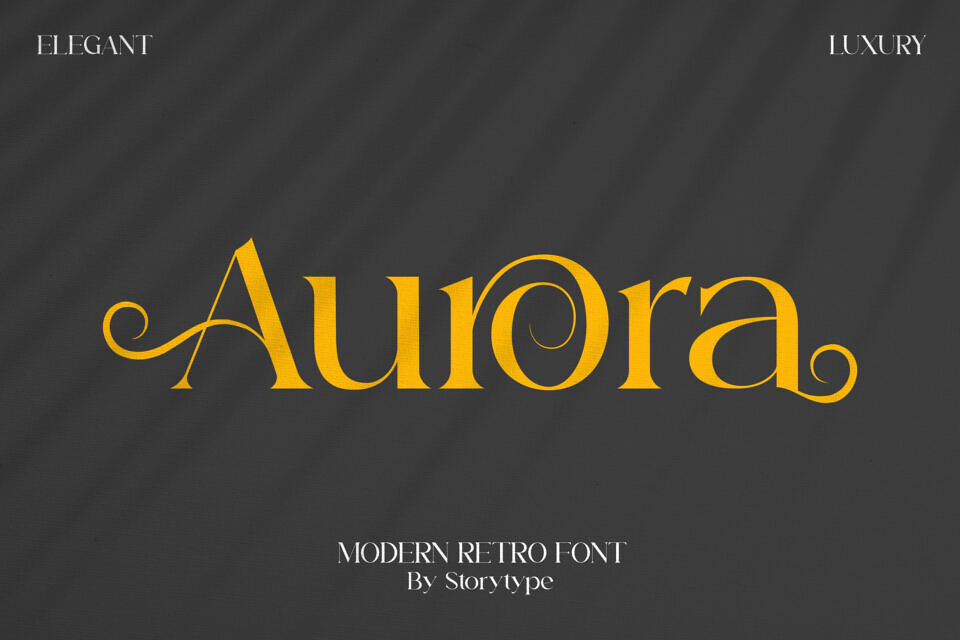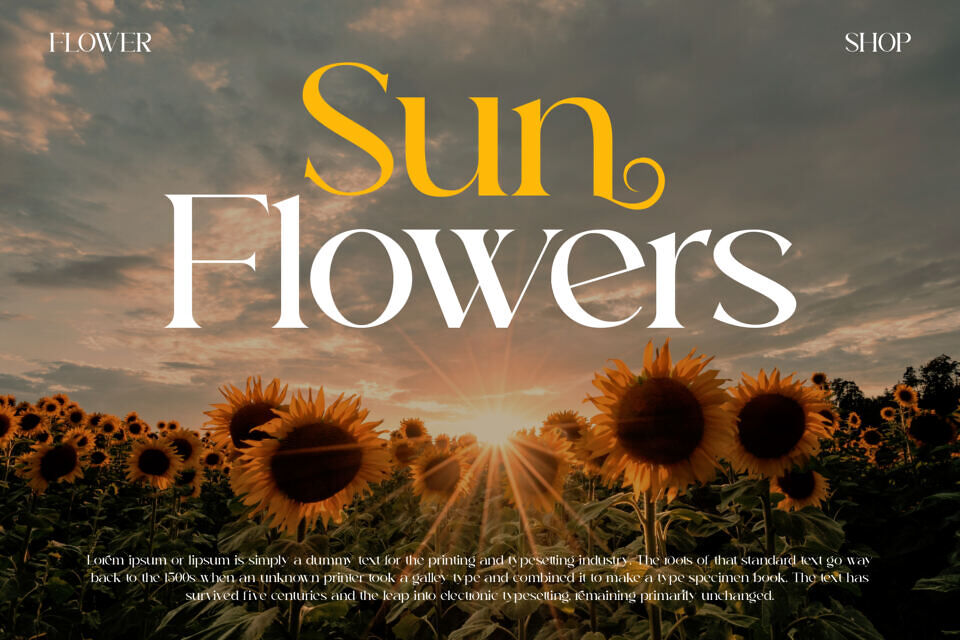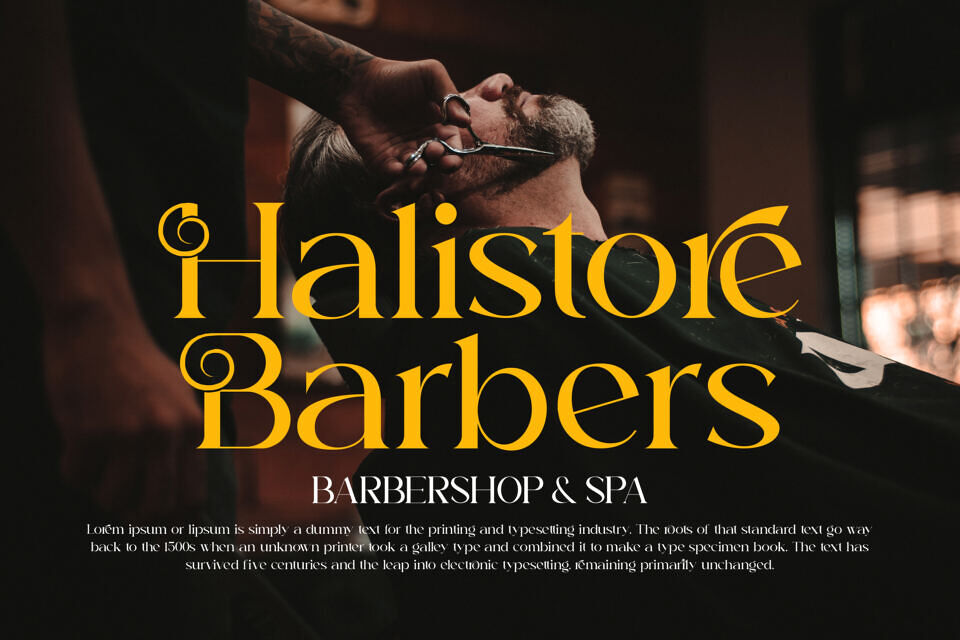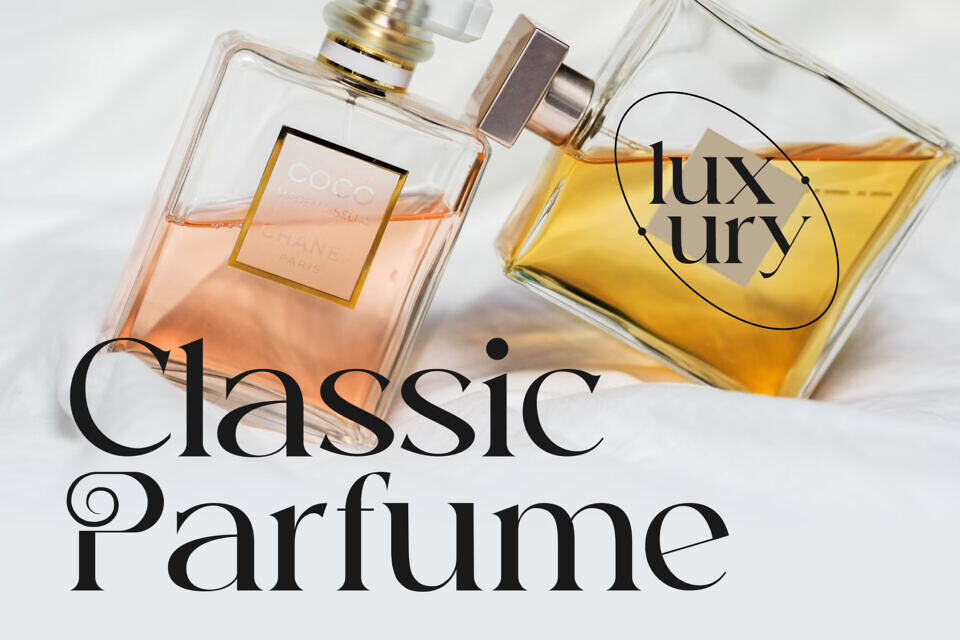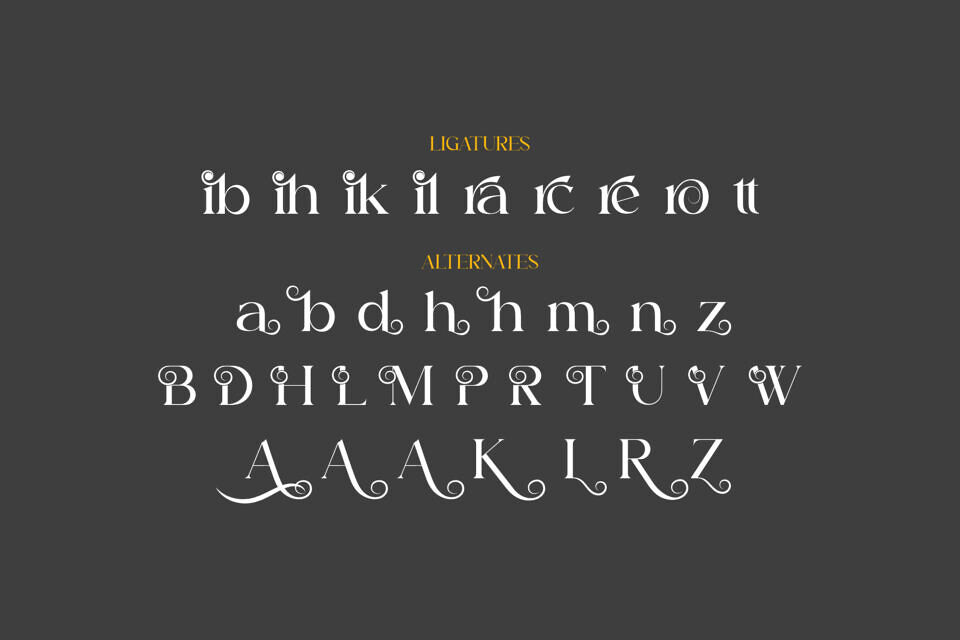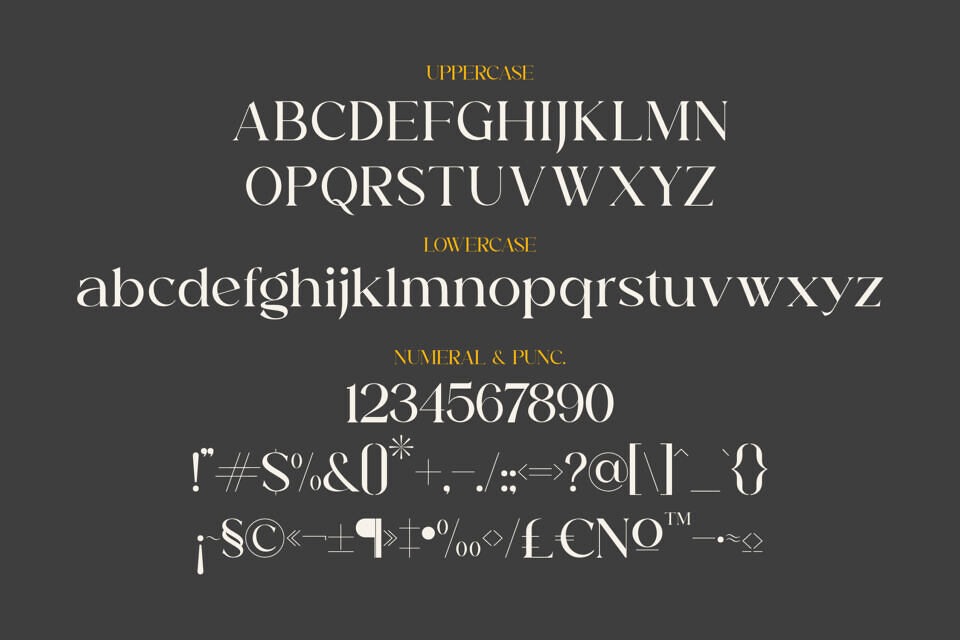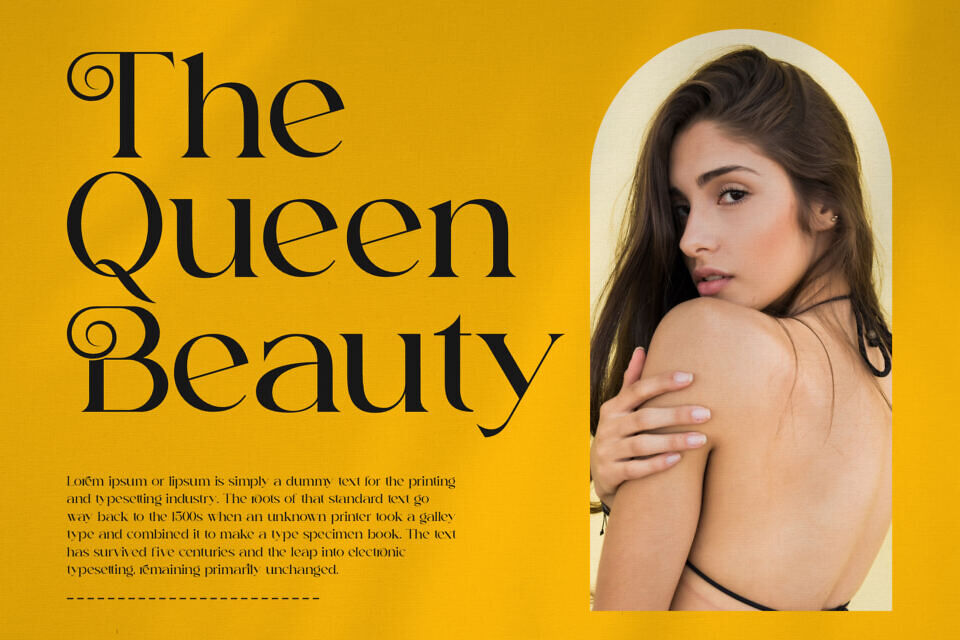
Aurora Font
Introducing Aurora Typeface by  Storytype Studio, a modern serif font with a distinctive flair. Its classic yet contemporary style makes it ideal for an elegant & luxury logo, book or movie title design, fashion brand, magazine, clothes, lettering, quotes, and so much more. It’s also suitable for various design applications, including books, movies, and editorial content.